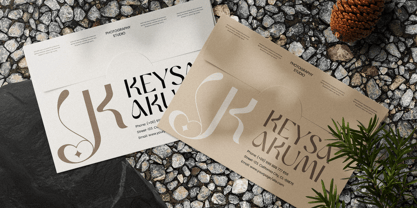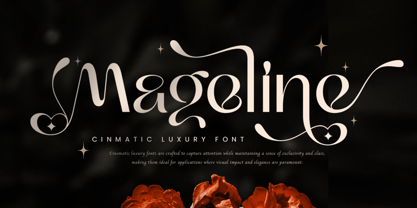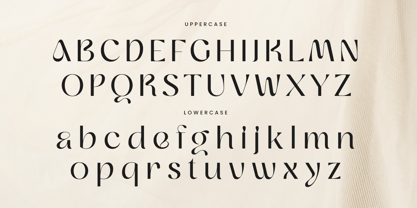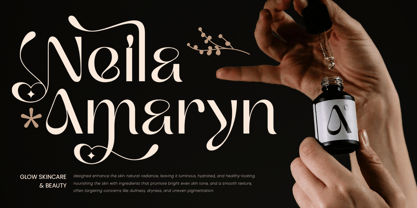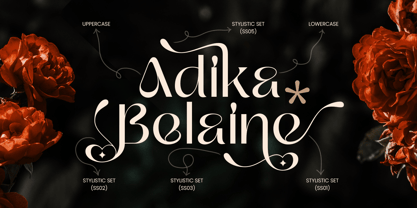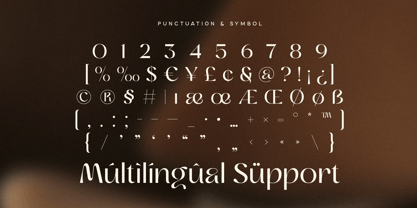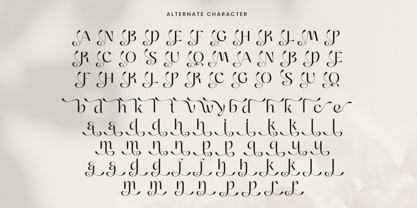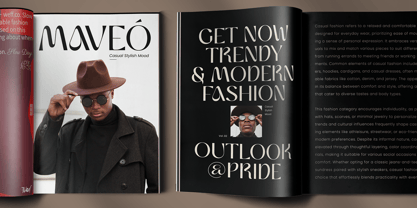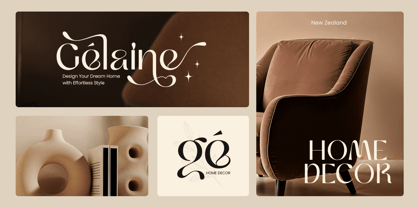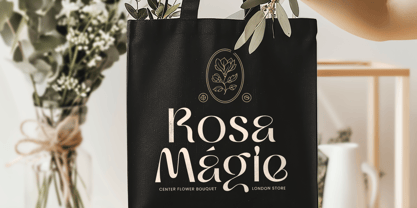
Mageline is a cinematic sans serif font that blends elegance and boldness in a timeless way. Designed for high-end projects like movie titles, fashion branding, luxury packaging, and editorials, Mageline delivers a dramatic and refined presence. Each letter is shaped with precision to bring both beauty and strength to your visual storytelling.
Drawing inspiration from classic film typography and modern luxury aesthetics, Mageline adds sophistication to any design. Its stylish curves, sharp contrasts, and premium character spacing make it ideal for headlines, logos, and any layout that seeks attention and class.
Let Mageline elevate your branding and design projects with its cinematic charm. Whether for screen or print, it brings that luxurious flair your audience won’t forget.
Mageline Cinematic Luxury Font Features:
High-contrast Sans Serif with Luxurious Feel
Great for Movie Titles, Fashion, Branding & Editorials
Punctuation, Numbers, and Symbols
Uppercase and Lowercase
Swash Alternative Features
Multilingual Characters available for:
Afrikaans, Albanian, Asu, Basque, Bemba, Bena, Breton, Chiga, Cornish, Dutch, English, Estonian, Filipino, Finnish, Friulian, Galician, German, Gusii, Indonesian, Irish, Italian, Kabuverdianu, Kalenjin, Kinyarwanda, Luo, Luxembourgish, Luyia, Machame, Makhuwa-Meetto, Makonde, Malagasy, Manx, Morisyen, North Ndebele, Nyankole, Oromo, Portuguese, Quechua, Romansh, Rombo, Rundi, Rwa, Samburu, Sango, Sangu, Scottish Gaelic, Sena, Shambala, Shona, Soga, Somali, Spanish, Swahili, Swedish, Swiss.
Mageline